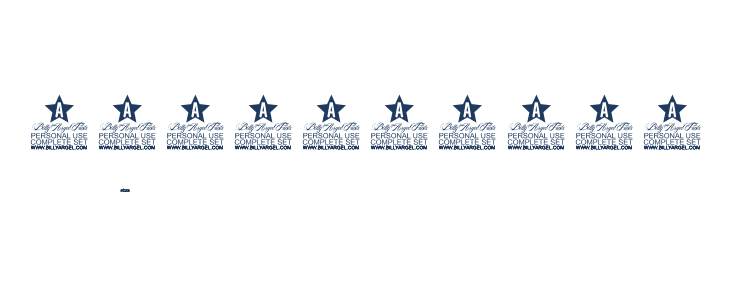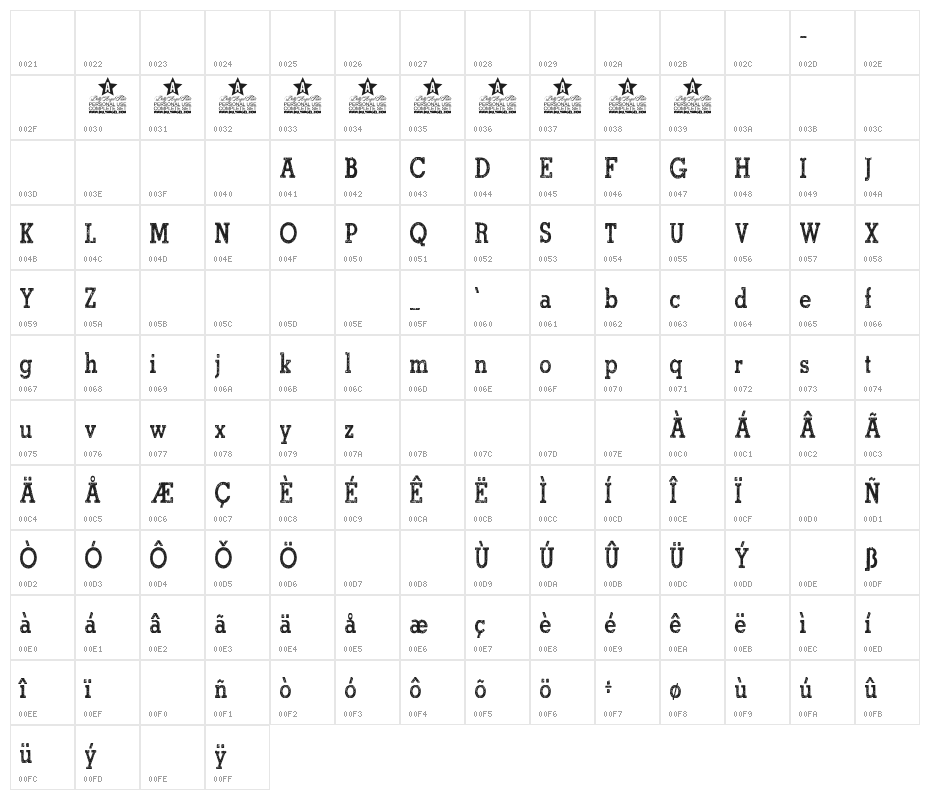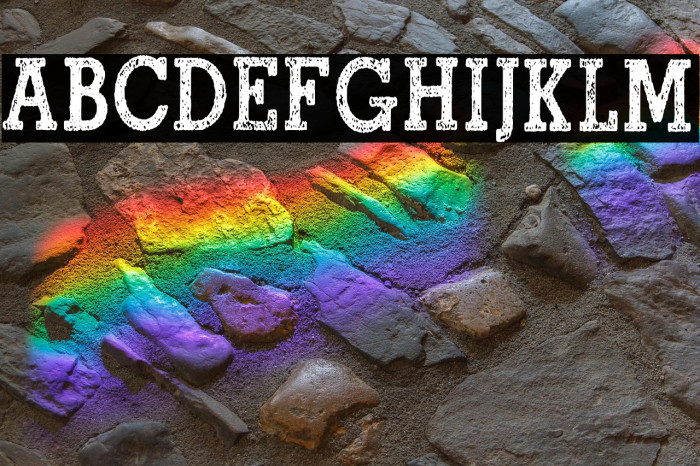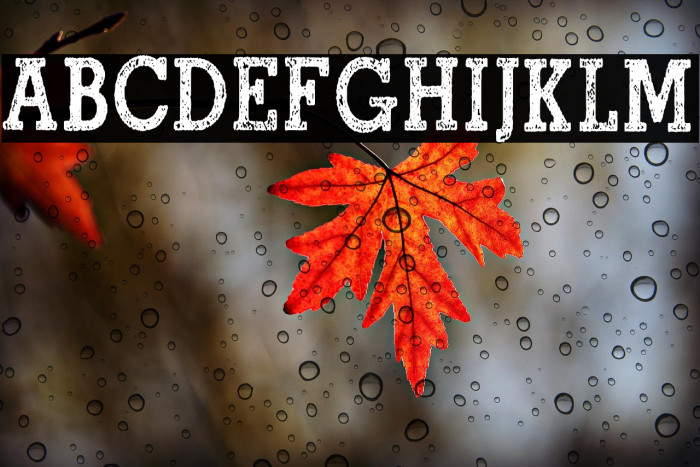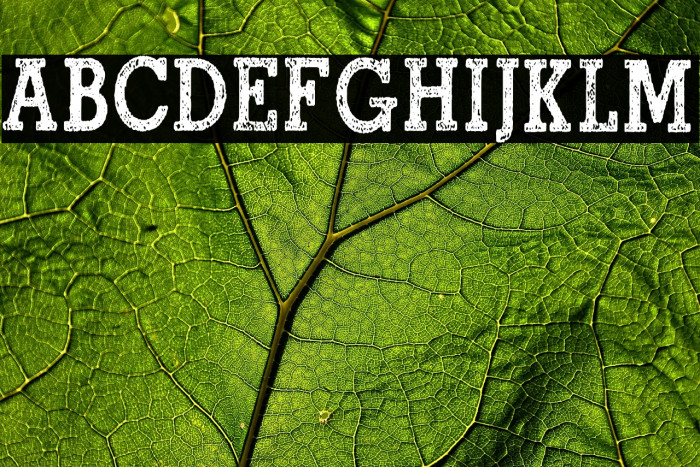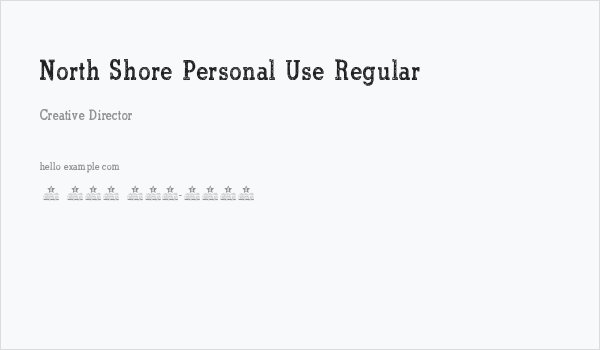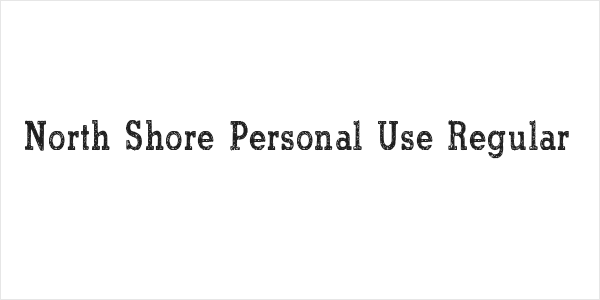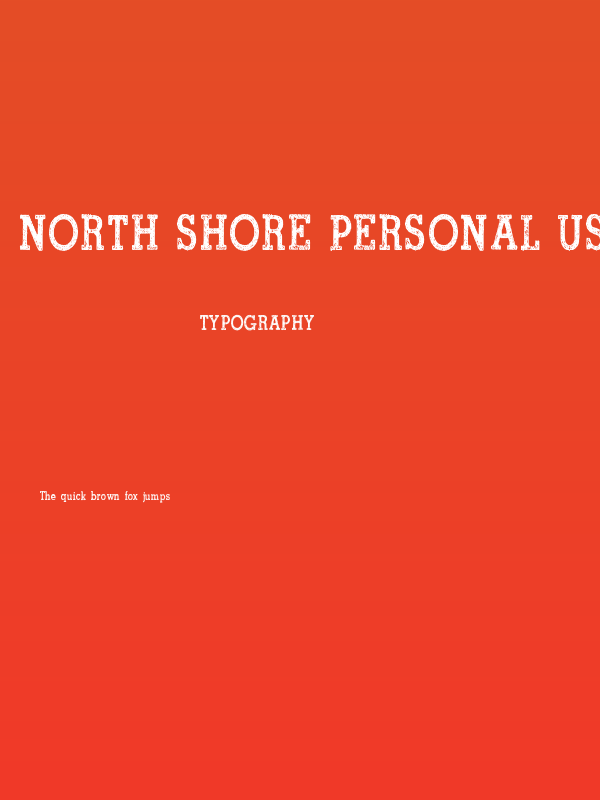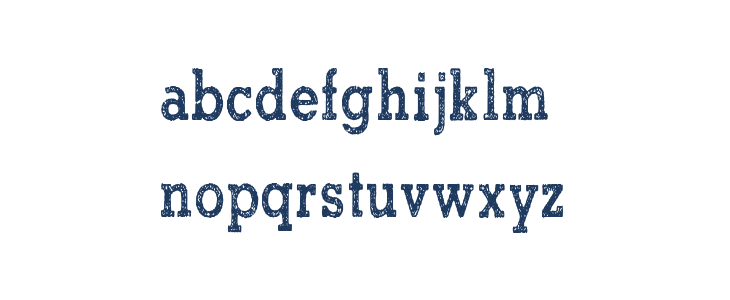
North Shore Personal Use Regular Font
North Shore Personal Use Regular Description
This font features a bold, textured style with a distressed appearance, giving it a vintage and rugged feel. The uppercase and lowercase letters maintain a consistent weight, providing a strong and impactful presence. The texture adds a unique character to each letter, making it suitable for designs that require a rustic or handcrafted look. The numerals and special characters follow the same textured pattern, ensuring uniformity across all elements. This font is ideal for projects that aim to convey a sense of authenticity and nostalgia.